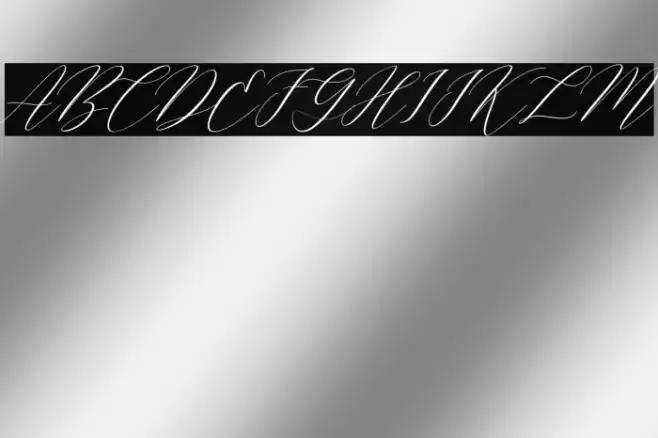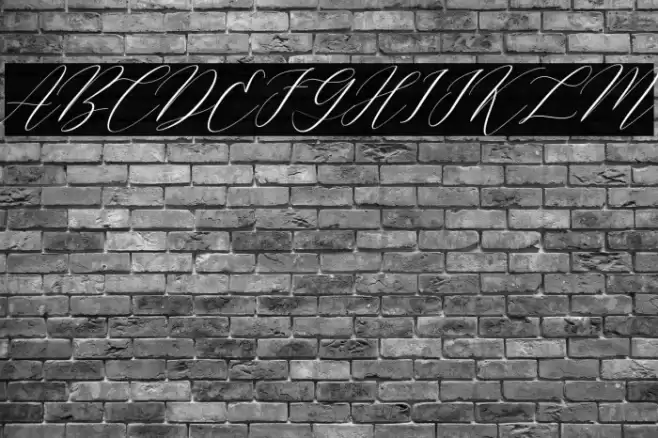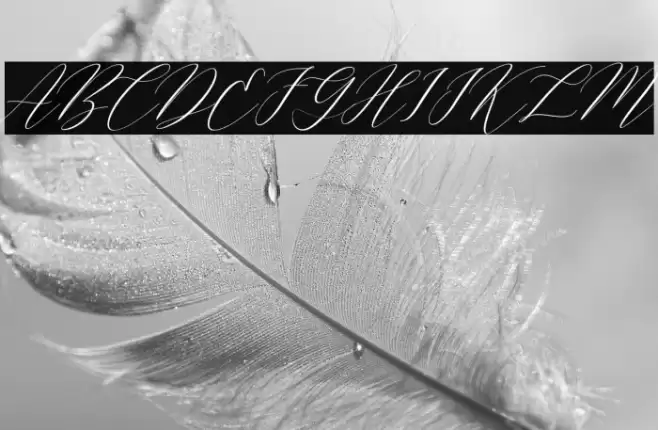
Cantona Slant Slant Font
Cantona Slant Slant Description
This elegant script font features a sophisticated and fluid design, characterized by its slanted, cursive style that mimics the flow of elegant handwriting. The uppercase letters are gracefully elongated, with sweeping curves and delicate loops, while the lowercase letters maintain a consistent slant, offering a harmonious and flowing appearance. The numerals and special characters are crafted with the same attention to detail, ensuring a cohesive look across all glyphs. The font's thin strokes and high contrast between thick and thin lines add to its refined and stylish aesthetic, making it ideal for projects that require a touch of elegance and sophistication.
A refined, slanted script font with elegant, flowing cursive strokes from Uncategorized fonts.
- Font: Cantona Slant Slant
- Proposed Projects: Ideal for wedding invitations, elegant branding, luxury product packaging, and sophisticated editorial design.
- Overall Style: Elegant
- Use Case: Logos, Invitations, Branding